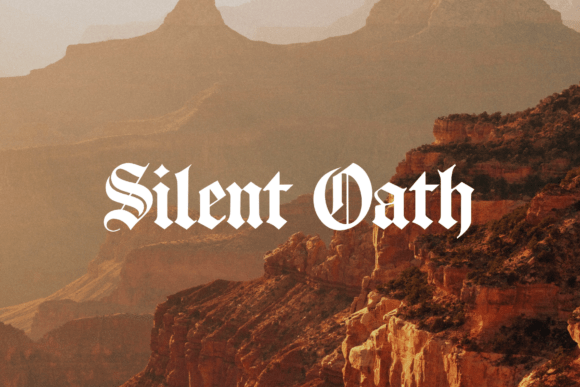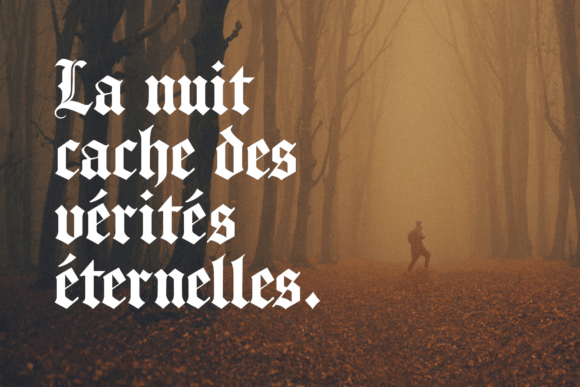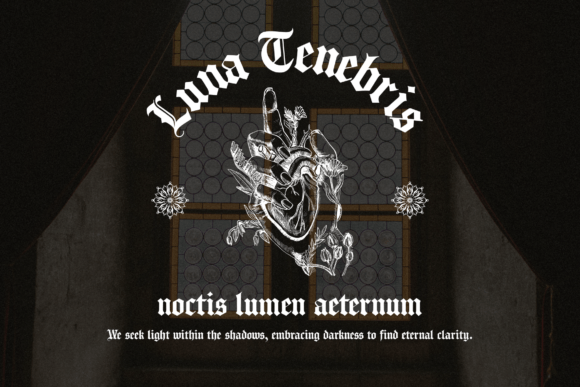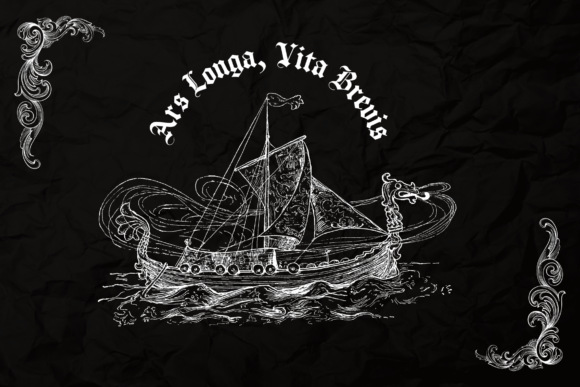
Highborne Font
Immerse yourself in a realm of majestic legends, ageless castles, and enduring promises with Highborne, a blackletter-style typeface that breathes a sense of mighty character and historic enchantment into your work.